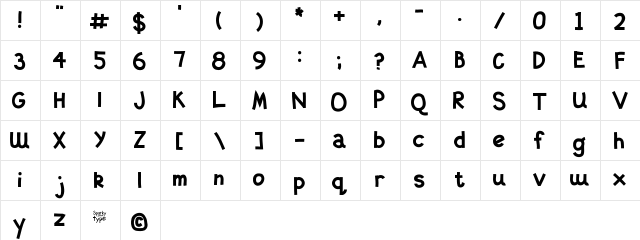
ST Ember Font Preview
ST Ember ST Ember
Design Context for ST Ember Typeface
ST Ember offers clean, dependable letterforms without strong stylistic allegiance, making it a practical choice for designers who need flexibility.